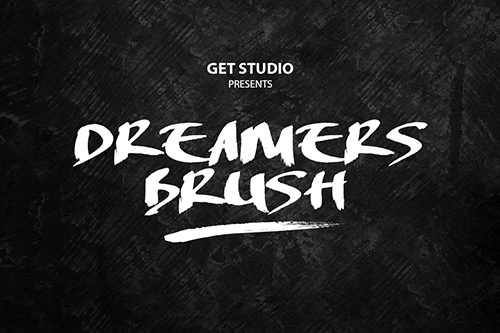
Font name: | Dreamers Brush |
Author: | Get Studio |
Introduction to Dreamers Brush. A hand-made brush fonts by Get Studio, designed to combine perfectly and allow you to create stunning hand-lettering quickly and easily. |